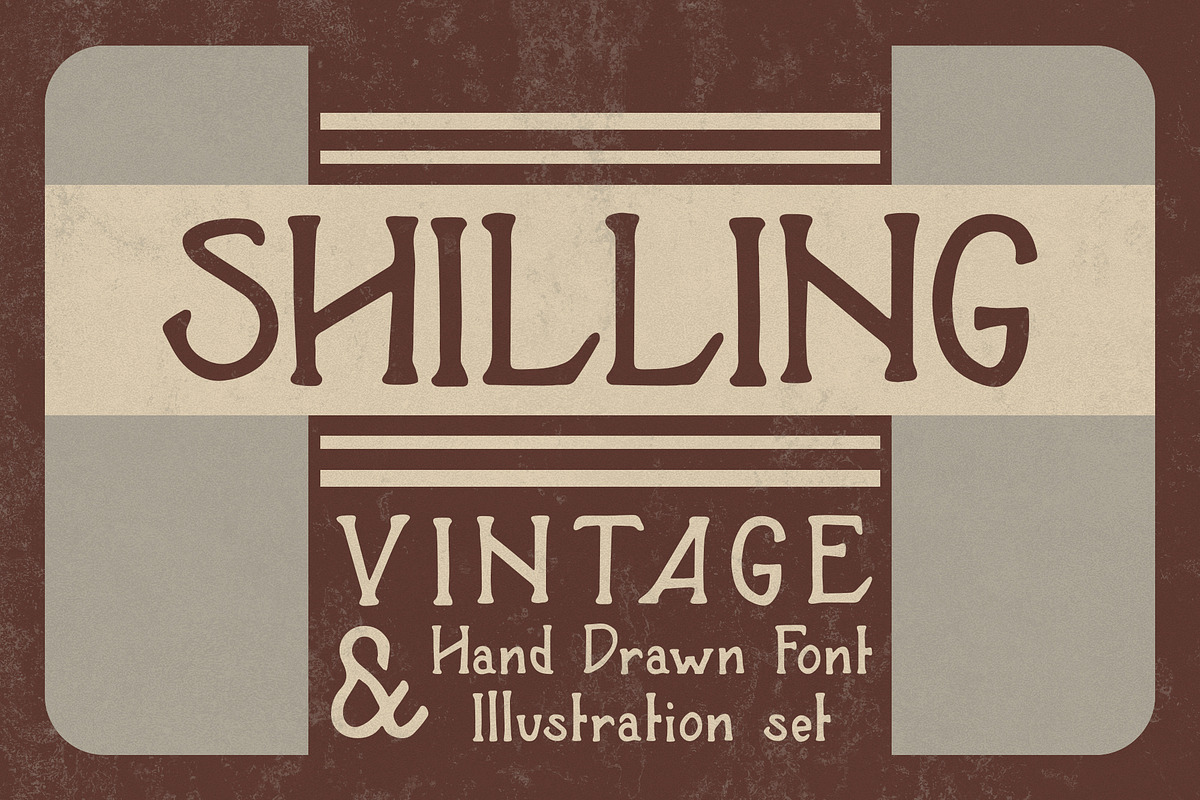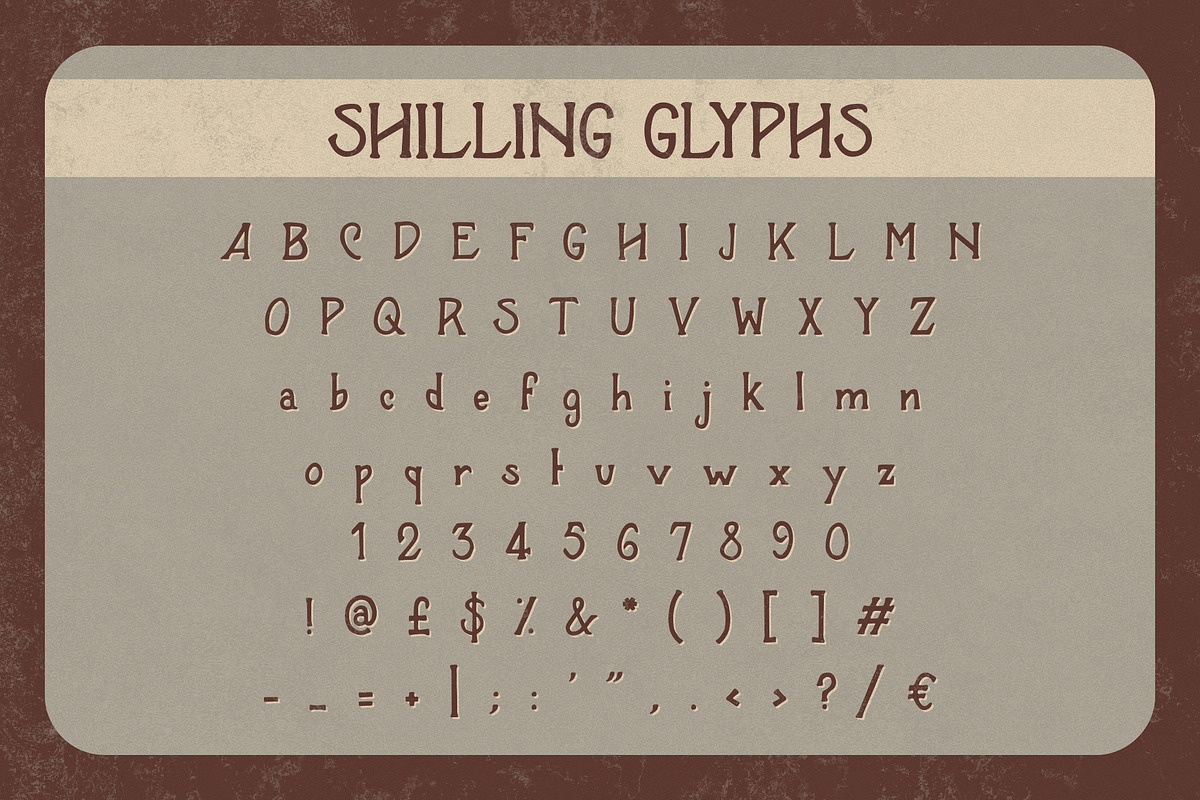
Shilling Font
Shilling Font by Design Surplus is a font selected for branding, posters, packaging, typography.
Why Shilling Font is worth a look
Shilling Font by Design Surplus fits naturally into Branding, posters, packaging, typography.